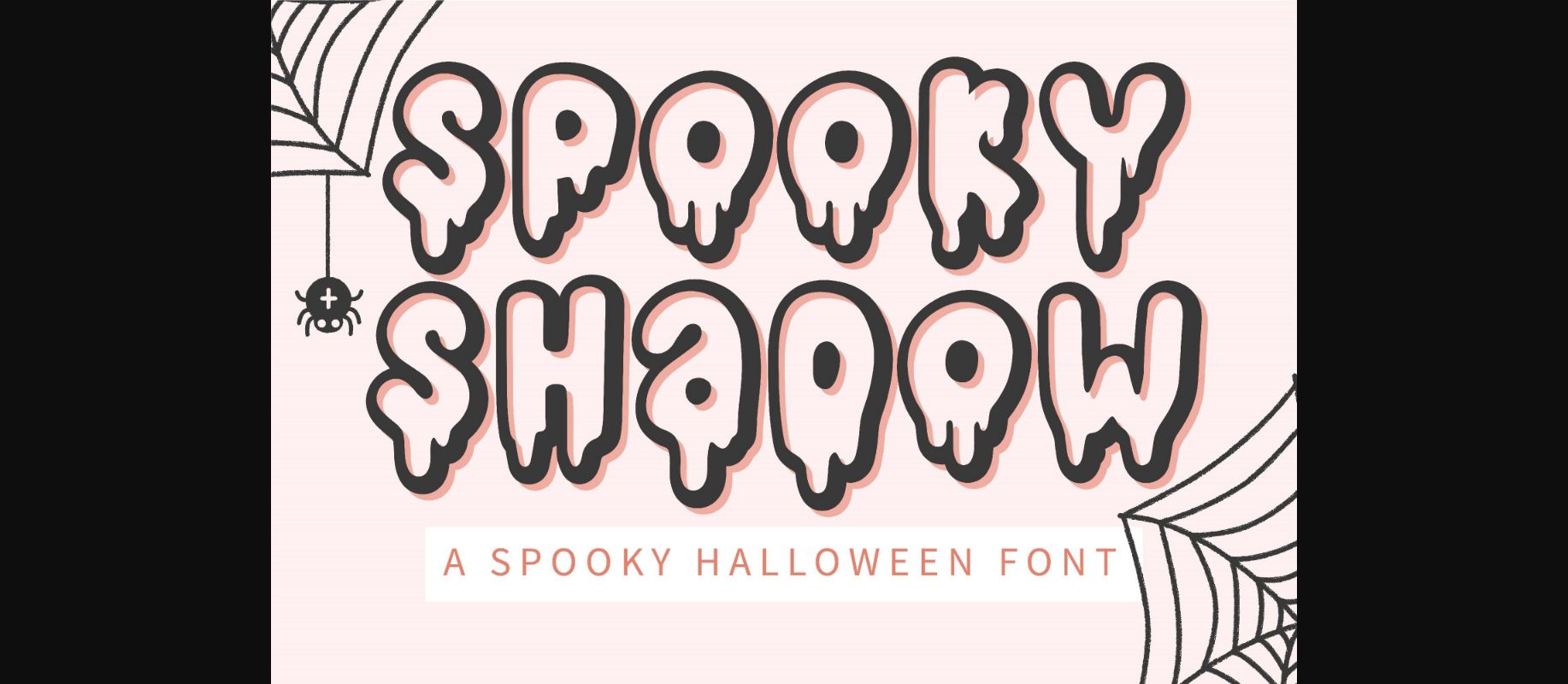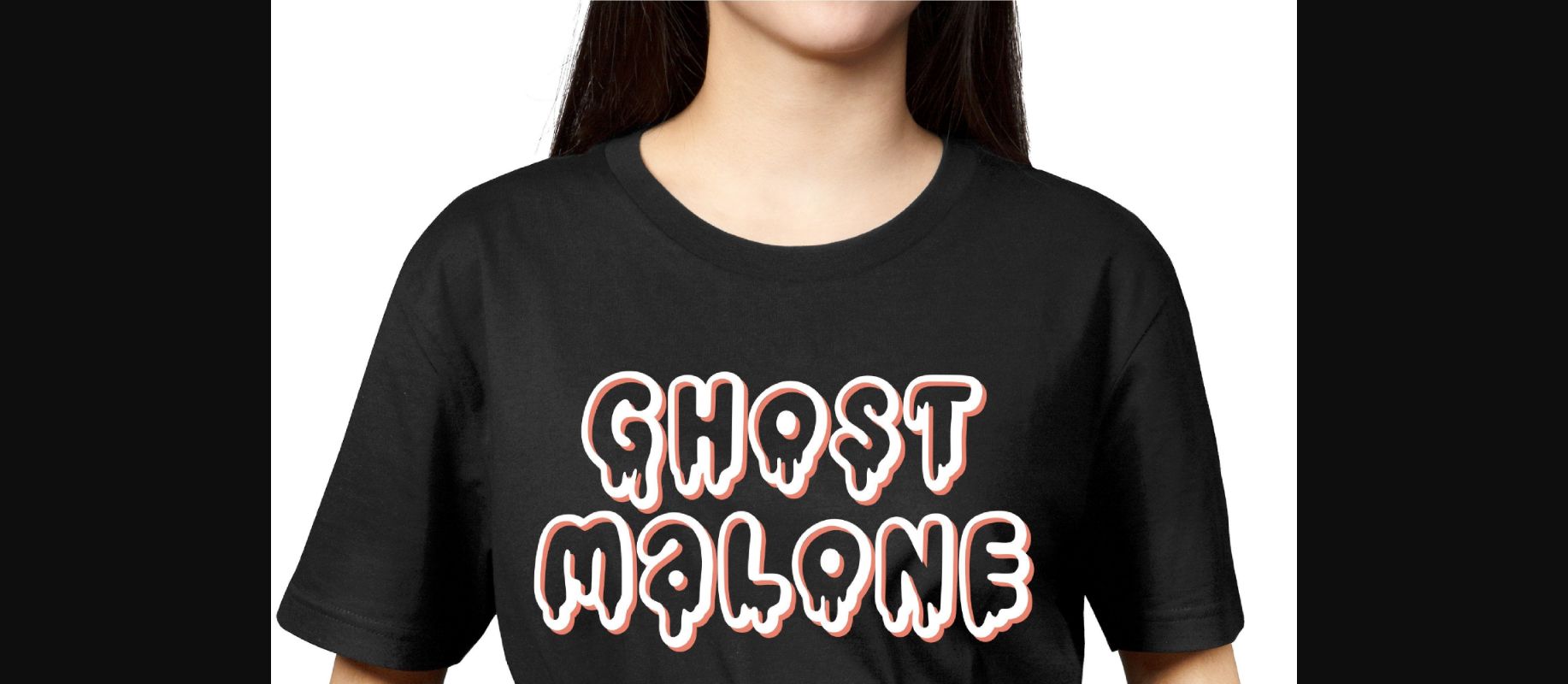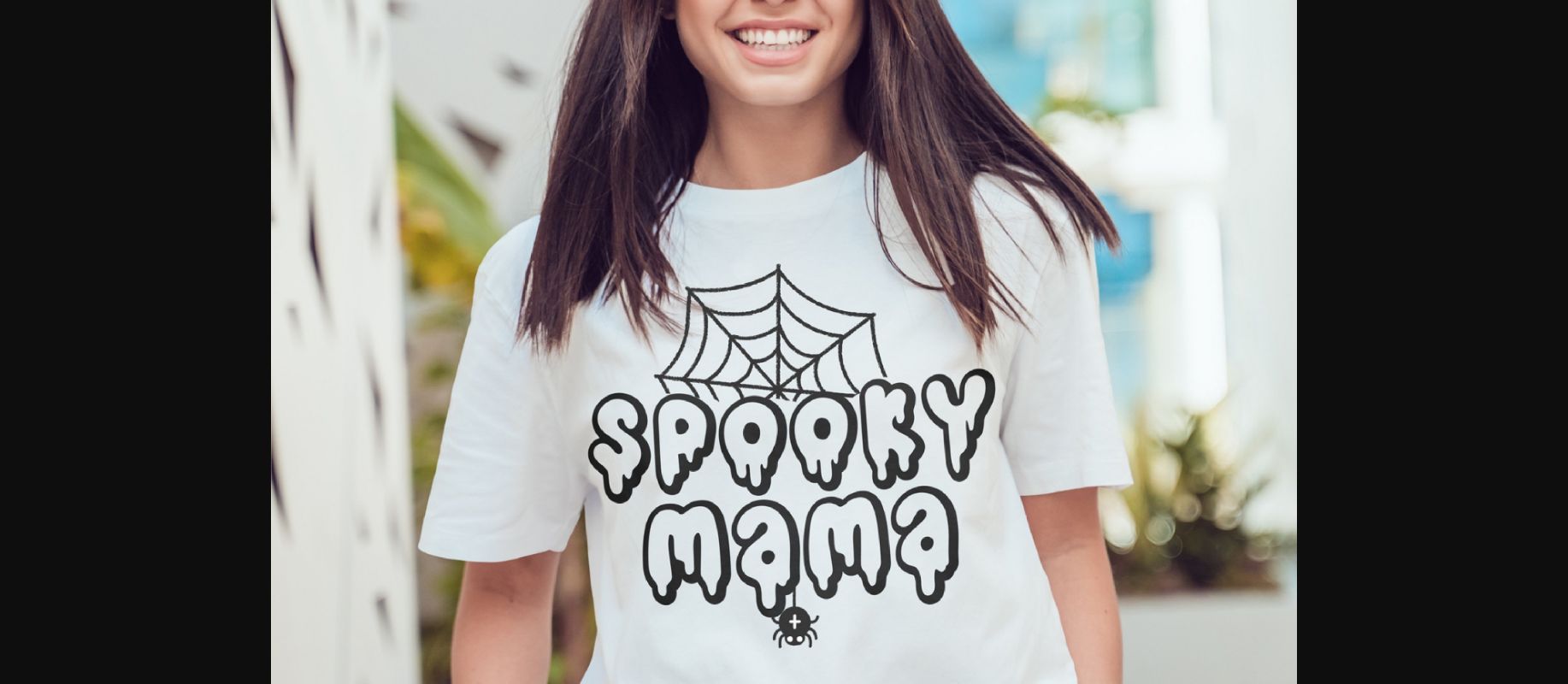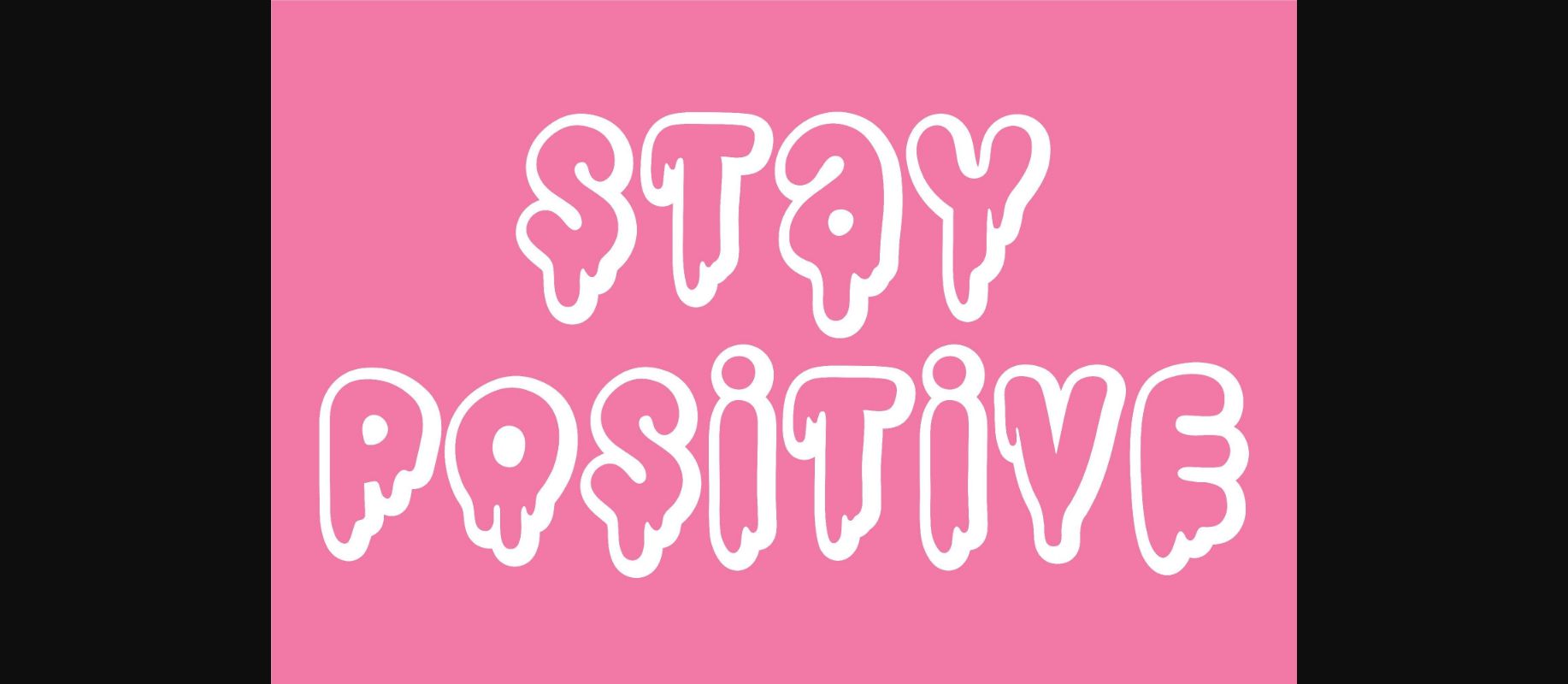
HomeDecorative FontsSpooky Shadow Font Decorative Fonts Spooky Shadow Font FacebookXPinterestWhatsApp 1 of 8 ... Spooky Shadow Font Poster 2... Spooky Shadow Font Poster 3... Spooky Shadow Font Poster 4... Spooky Shadow Font Poster 5... Spooky Shadow Font Poster 6... Spooky Shadow Font Poster 7... Spooky Shadow Font Poster 8... About Spooky Shadow Font Spooky Shadow is a spooky and fun Halloween decorative font. It is perfect for any October project that requires a dramatic touch! DOWNLOAD NOW People also explored Mariabella Unsteady Overseer Jingle Joy Font Darling Font Beautiful Mind Font Grizelle Font Bulgaria Font Slightwell Font Simple Minimalse Font 286 0 TagsSpooky Shadow Font Previous articleHideous FontNext articleCancer Font LEAVE A REPLY Cancel reply Comment: Please enter your comment! Name:* Please enter your name here Email:* You have entered an incorrect email address! Please enter your email address here Website: Save my name, email, and website in this browser for the next time I comment. Personal Use Free Alligator Font Personal Use Free Read more about this font Klotee Personal Use Free Read more about this font Breather Personal Use Free Read more about this font Butter Belly Personal Use Free Read more about this font BLOG Exploring Font Trends Shaping Communication in the Digital Era Fonts, like all design elements, are subject to trends. They play a crucial role in communicating a brand's personality,... Using Fonts in Digital Marketing: Tips to Strengthen Your Brand Identity To increase your work productivity, choose the most readable fonts. Best Fonts for YouTube Videos: Make Your Thumbnails Stand Out